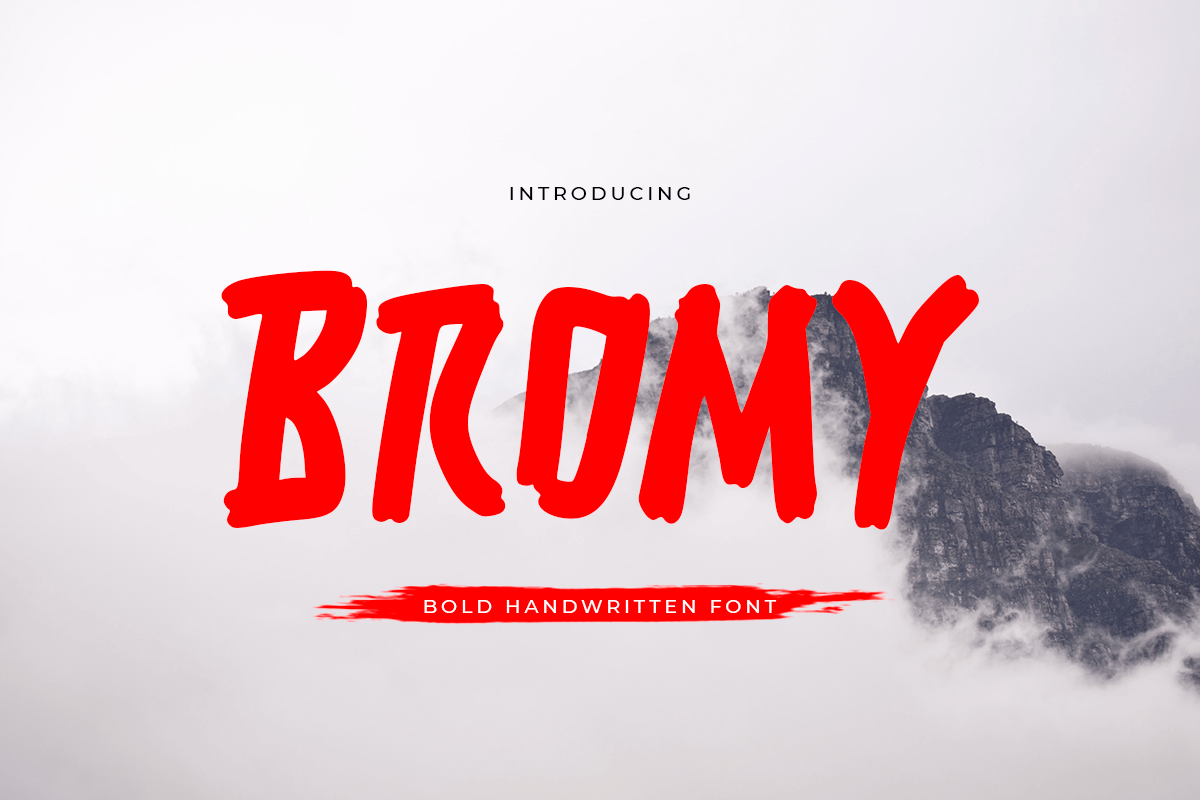
Bromy
-Bold Handwritten Font
Bromy is a Bold Hand-Lettered Font that's perfect for Headline, Thumbnail or Merchandise. This font specially crafted for your design projects such as banner, poster, flyer, website design, product packaging, merchandise, pillow print and so many more with easy to use but standing out results are so weird.
Enjoy to Design any your needs with standing out, unique, and authentic feels.